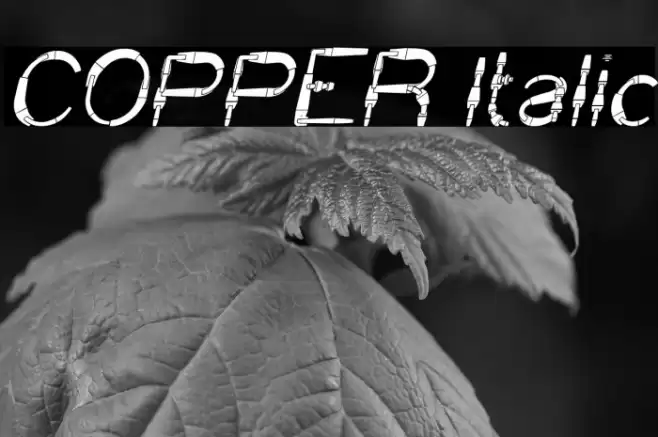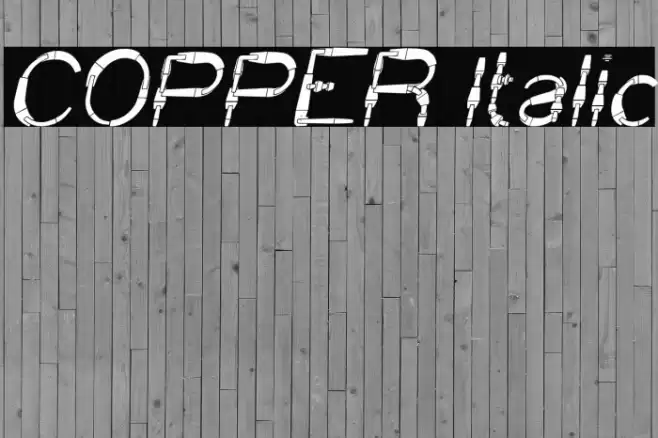
COPPER Italic Font
COPPER Italic Description
This font features a unique and modern design with a distressed, fragmented appearance. The characters are italicized, giving them a dynamic and forward-leaning posture. Each letter is composed of broken segments, creating a sense of movement and energy. The uppercase and lowercase letters maintain a consistent style, with clean lines and sharp angles. Numbers and special characters follow the same fragmented pattern, ensuring uniformity across the font. The overall aesthetic is bold and eye-catching, suitable for projects that require a distinctive and edgy look.
A modern, fragmented italic font with a bold and dynamic style from Uncategorized fonts.
- Proposed Projects: Ideal for edgy branding, album covers, posters, and modern art projects.